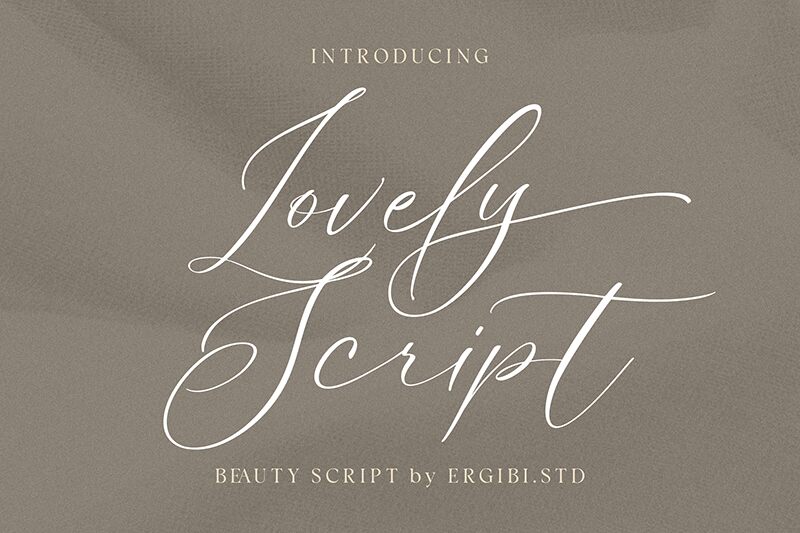
Lovely Script
Lovely Script font by Riyadh Rahman is a free ultra-light handwritten script display font. Built for romance and ceremony, it sweeps across the line with feathery hairline strokes, high contrast, and long, effortless flourishes. The spacing breathes just enough to keep swashes airy, giving titles a soft, inky shimmer without losing legibility.
Using Lovely Script, your work shines on wedding invitations, save‑the‑date cards, boutique logos, skincare or perfume packaging, social quote graphics, signage, and refined stationery sets. Its delicate rhythm rewards larger sizes; set it generously (36pt and up) to let the loops sing. For a balanced look, pair this free font with a crisp, minimal sans in small caps to anchor the elegance.